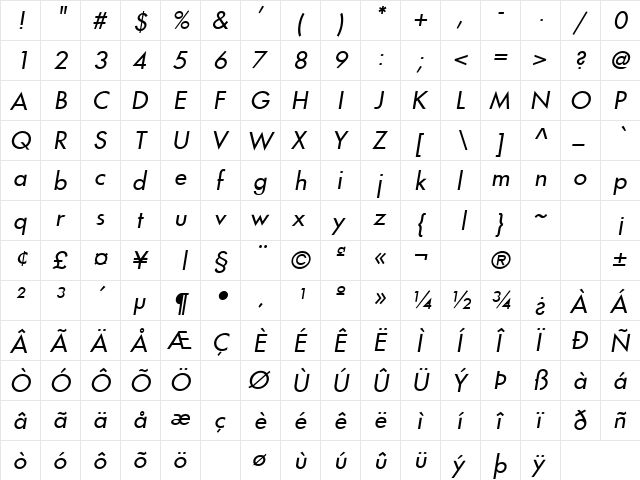
Loving 11 Italic
Design Context for Loving 11 Typeface
Loving 11 is a composed and adaptable typeface that performs quietly and consistently across a wide range of design contexts. Its italic angle brings a sense of urgency and motion to the letterforms.
Pro Tip: Try Loving 11 for annotation and caption copy alongside an upright companion — the contrast in angle creates a dynamic but ordered typographic system.